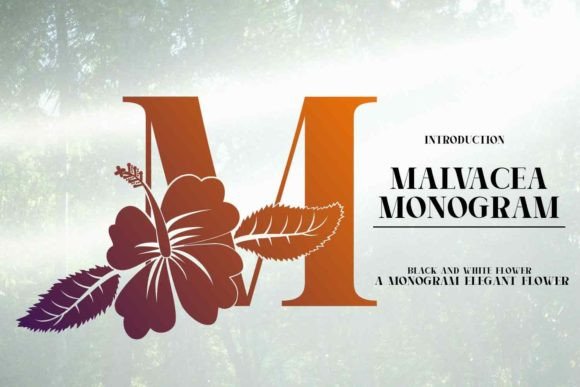
Malvacea: A Premium Font for Distinctive Design
Malvacea is more than just a typefaceβit's a statement. Designed with care and intention, this monogrammed font isn't meant for everyday typing. Instead, it's crafted to elevate your projects, adding a touch of sophistication and uniqueness that sets them apart. Whether you're working on a brand identity, packaging design, or editorial layout, Malvacea brings a refined aesthetic that commands attention.
With its elegant curves and stylized letterforms, Malvacea exudes a sense of craftsmanship. It's not a casual font; it's a choice for those who want their work to feel intentional. The font's visual characteristics make it ideal for applications where style and personality matter most. Its PUA encoding ensures that all the glyphs and ligatures are easily accessible, giving designers flexibility without technical barriers.
Where Malvacea Shines in Creative Projects
Malvacea excels in scenarios where visual impact is key. As a display font, it works exceptionally well in logo design, especially for brands in fashion, lifestyle, and artisanal industries. Think clothing labels, jacket emblems, or handcrafted accessories. Its presence adds a level of exclusivity that aligns with premium branding.
For packaging design, Malvacea can be used to create eye-catching product names or taglines. In editorial design, it's perfect for headings or section dividers that need to stand out without overwhelming the reader. On social media graphics, it helps create bold, memorable visuals that resonate with audiences.
When used in web design, Malvacea can serve as a focal point for hero sections or call-to-action buttons. However, it's important to consider readability when using it in larger blocks of text. Pairing it with a complementary sans serif or serif font can help maintain balance and clarity.
How Malvacea Influences Brand Perception and Design
The right font can shape how a brand is perceived. Malvacea, with its refined and artistic qualities, contributes to a sense of professionalism and creativity. It signals to audiences that a brand values quality and originality. This makes it an excellent choice for businesses looking to build a strong, recognizable identity.
In terms of visual hierarchy, Malvacea can draw attention to key elements in a design. Its distinctiveness helps guide the viewer's eye, making it ideal for headlines, logos, and other prominent design components. When paired correctly, it enhances the overall composition without clashing with other elements.
Consistency is crucial in branding, and Malvacea offers a cohesive look that can be applied across various touchpoints. From business cards to digital ads, using the same font across different platforms reinforces brand recognition. This consistency helps build trust and familiarity with the audience.
Practical Tips for Using Malvacea in Your Work
Before incorporating Malvacea into a project, take time to evaluate whether it fits the overall vision. Consider the tone of the brand or message you're trying to convey. If the goal is to communicate elegance and artistry, Malvacea is a strong candidate. For more straightforward or functional designs, it may not be the best fit.
Testing font pairings is essential. Experiment with different combinations to see how Malvacea interacts with other fonts. A clean, modern sans serif can provide contrast while maintaining readability. A classic serif might add warmth and tradition, depending on the desired effect.
Readability should never be overlooked. While Malvacea is visually striking, it's best suited for short text elements rather than long paragraphs. Use it for titles, headings, or decorative elements where its beauty can shine without compromising legibility.
Real-World Applications of Malvacea
Imagine a boutique clothing brand using Malvacea for its logo. The font's unique style gives the brand a distinctive identity that stands out in a crowded market. It could also be used on product tags or packaging to reinforce the brand's aesthetic.
For a small business owner launching a new line of handmade pillows, Malvacea could appear on the packaging or marketing materials. It adds a personal, artisanal touch that resonates with customers looking for something special.
In a digital campaign, Malvacea might be used in social media posts or email newsletters to create a visually appealing and cohesive look. Its ability to blend style with functionality makes it a versatile tool for marketers and content creators alike.
Ultimately, Malvacea is a powerful asset for anyone looking to add a touch of class and creativity to their work. Whether you're a designer, marketer, or small business owner, this font offers a way to make your projects feel more polished and intentional.